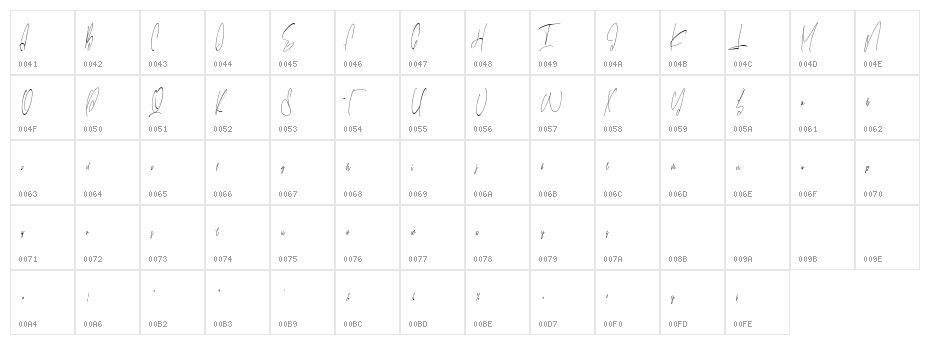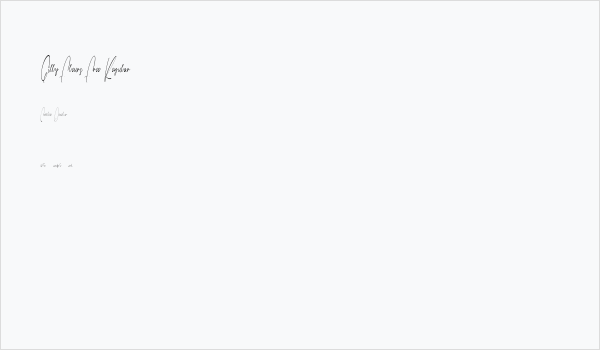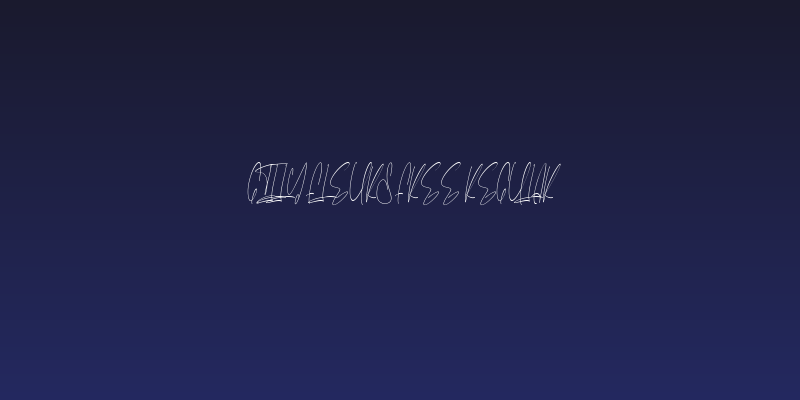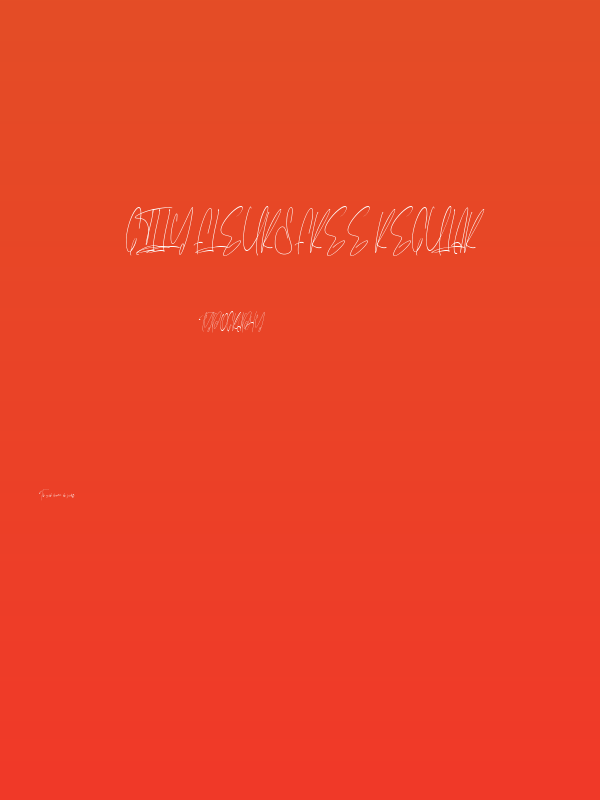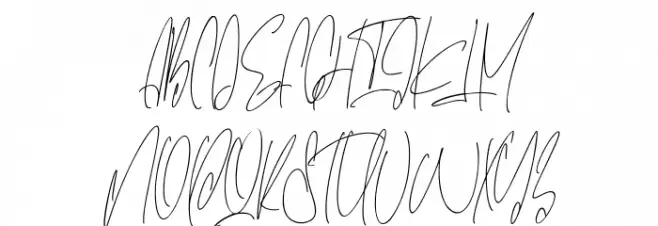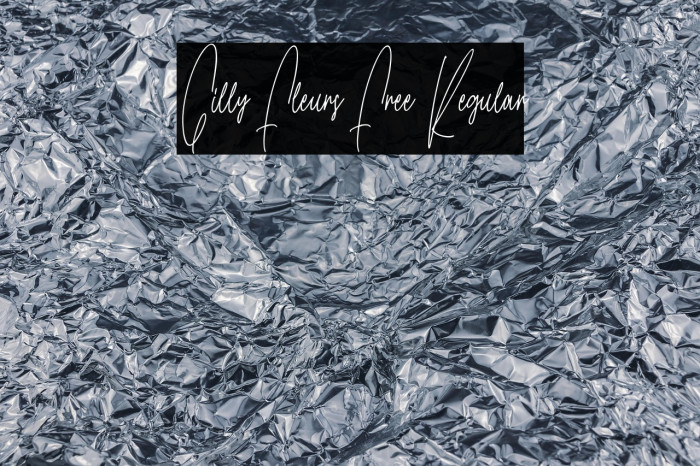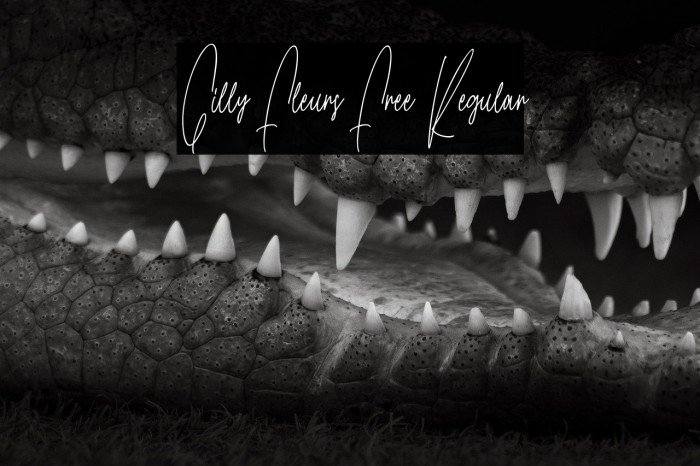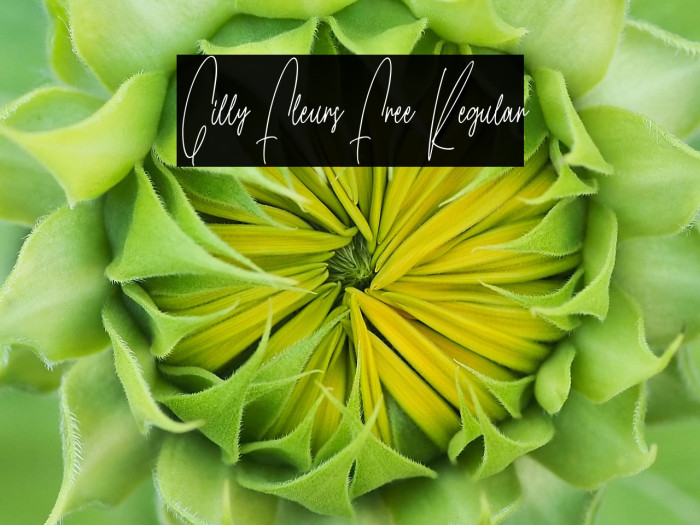
Gilly Fleurs Free Regular Font
✎ Script
Fonts by Maulana Creative
| Gesamtstil | Elegant, Artistic |
| Anwendungsfall | Invitations, Branding, Artistic projects |
| Vorgeschlagene Projekte | Ideal for wedding invitations, elegant branding, artistic projects, and personal stationery. |